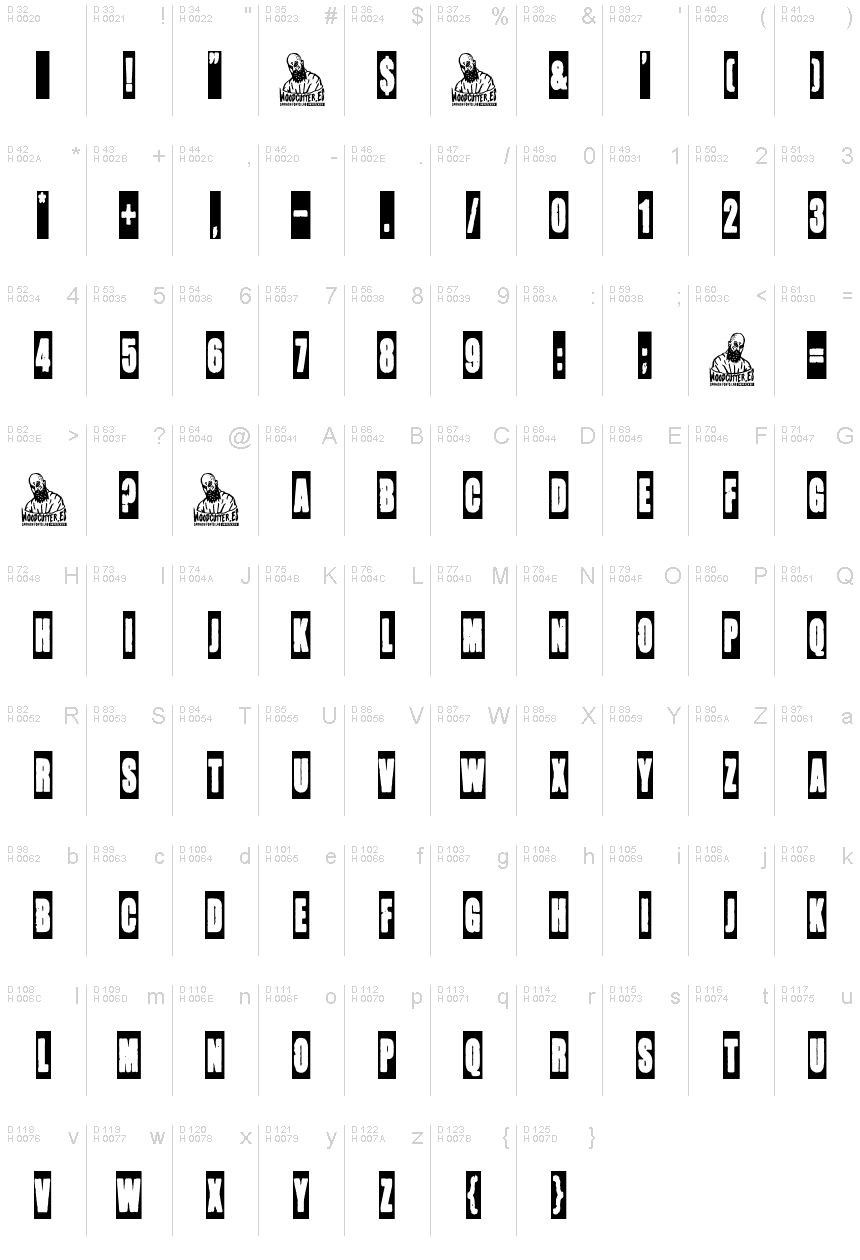
Negative Grunge Poster
Negative Grunge Poster, designed by Woodcutter, is a bold and extra-condensed display font that exudes an eroded and negative aesthetic. Its gritty texture and distorted edges make it ideal for projects seeking a rebellious and edgy vibe.
From concert posters to urban fashion campaigns, this font adds a raw and urban touch to any design. Whether you're working on album covers, street art promotions, or alternative magazine layouts, Negative Grunge Poster will captivate your audience with its intense style and unique character.